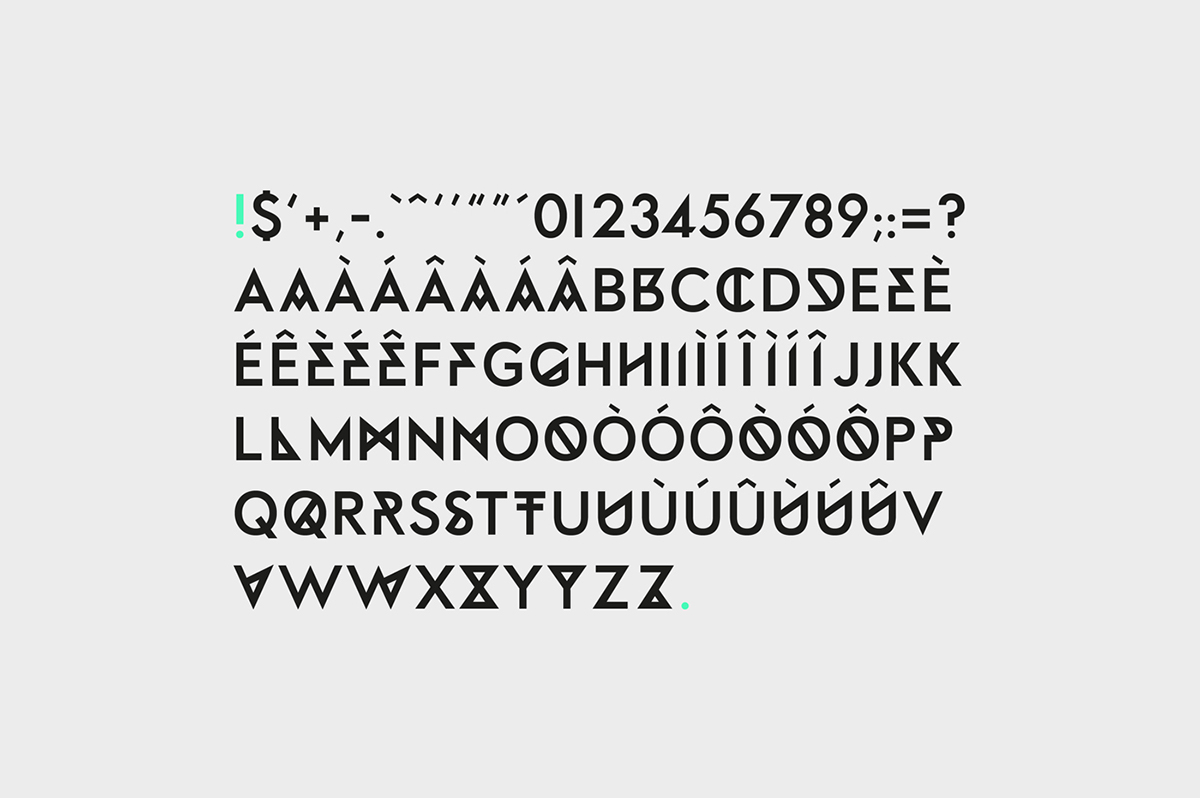
NEPTUNE
The god of freshwater and the sea ! Neptune is a typeface inspired by the aesthetics of the violence of Ancient Rome with contemporary influences.
It features two variants: a standard set which is a clean and clear sans serif, and an alternative who merged the two influences to create a
sophisticated contemporary look.